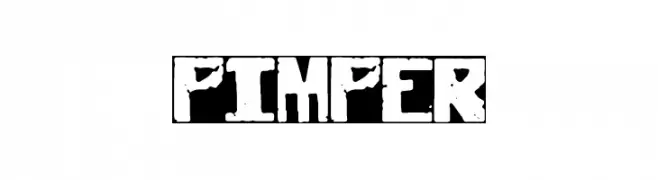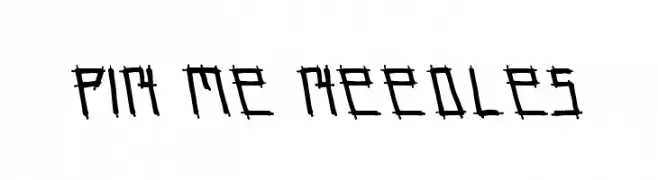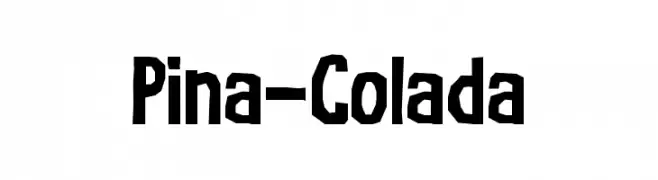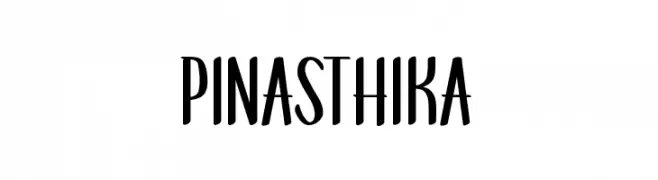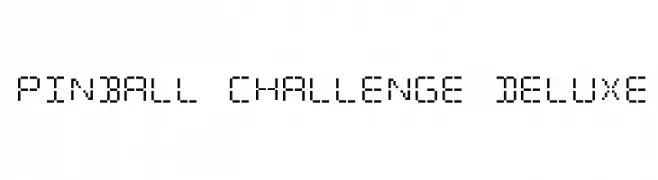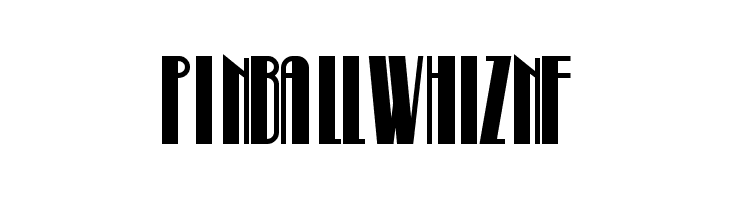
A modern, dotted font with a pixelated, playful appearance.
A playful, dotted decorative font with bold, rounded characters.
An edgy, barbed wire-inspired font with sharp, angular lines.
A playful, bold font with rounded edges and a hand-drawn look.
A bold, playful font with a hand-drawn, irregular style.
A playful and artistic font with elongated, narrow letterforms.
A retro dot matrix font inspired by vintage pinball displays.
A bold, condensed font with a strong vertical emphasis and cohesive design.